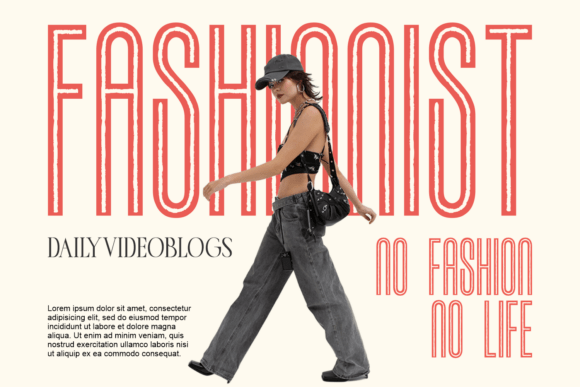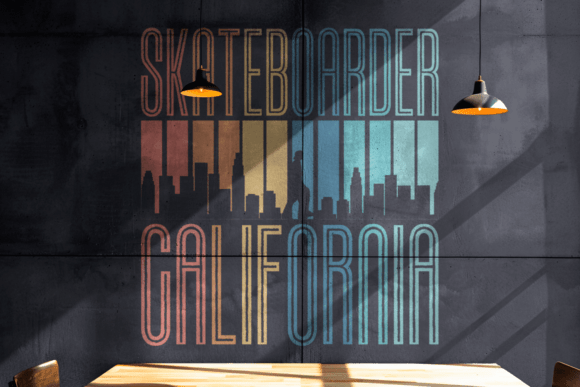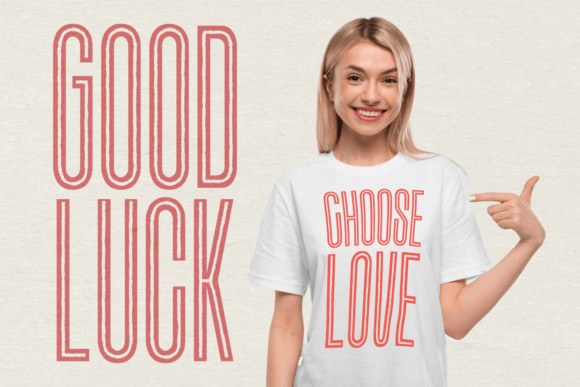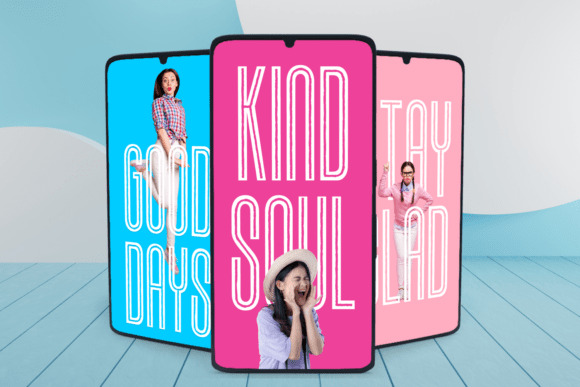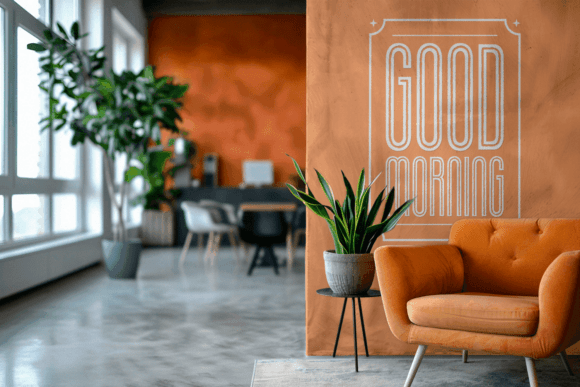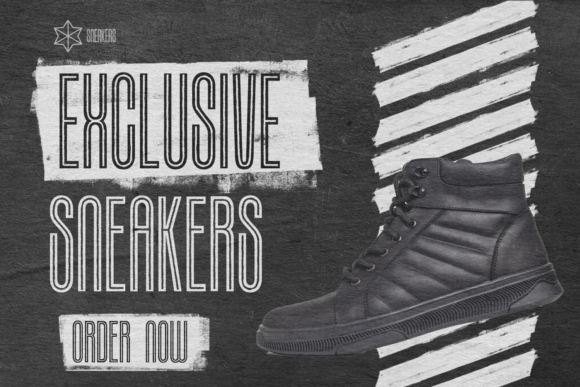
Introduction to Reaching Font
Have you ever been stuck on a creative project, searching for the perfect font to bring your vision to life? The hunt can be daunting, especially when you’re looking for something that exudes high-quality, modern sophistication. I’ve been there too, and that’s why I’m excited to introduce you to Reaching Font, a game-changing design resource that’s about to become your go-to companion for all your creative endeavors.
With its unique, outlined design and subtle textured detailing, Reaching Font is the perfect addition to any project that requires a touch of elegance and refinement. Its tall and narrow letterforms create a stunning visual effect, making it ideal for branding, posters, headlines, and stylish editorial layouts. Whether you’re working on a free download or a high-end design project, Reaching Font is sure to make a bold statement.
Key Features of Reaching Font
- Unique and creative design, ideal for branding, logos, and other visual identity projects
- Perfect design resource for designers, artists, and marketers looking for a high-quality font
Honest Review: Reaching Font
As a designer, I’m always on the lookout for high-quality design resources to elevate my creative projects. I recently stumbled upon the Reaching Font, and I’m excited to share my honest review with you.
- Unique and modern design aesthetic: The Reaching Font offers a fresh and modern look that’s perfect for a variety of creative projects.
- Transparent background: This feature allows for seamless integration with any background, giving you complete design freedom.
While the Reaching Font is a great addition to any design arsenal, I did encounter a few limitations:
- Limited character set: The font only includes a limited character set, which may not be suitable for complex or lengthy projects.
Overall, the Reaching Font is a solid choice for designers looking for a high-quality, free design resource. While it may not be perfect, its unique design aesthetic and transparent background make it a valuable addition to any creative project.
Reaching Font
Tips for Getting the Most Out of Reaching Font
To get the most out of Reaching Font, use it in conjunction with other design elements, such as images and shapes. Experiment with different font sizes and colors to create a visually appealing design. Reaching Font is a versatile font that can be used in a variety of creative projects.
Reaching Font is commonly used in logo designs, social media graphics, and marketing materials. Its high-quality design and transparent background make it a great choice for layered designs. With Reaching Font, you can create professional-looking designs that stand out from the crowd.
Alternatives to Reaching Font
Great Vibes is a high-quality, handwritten font perfect for creative projects that require a touch of elegance and sophistication. It’s ideal for use on transparent backgrounds and can be downloaded for free. When to use: promotional materials, branding, and wedding invitations. It compares to Reaching Font in that it offers a similar whimsical feel, but with more refined and polished lines.
Alex Brush is a beautiful, calligraphic font that works well for a wide range of creative projects, from logos to menus. It’s a free download and can be used on transparent backgrounds. When to use: packaging design, stationery, and invitations. It compares to Reaching Font in that it offers a similar level of sophistication, but with a more classic and timeless feel.